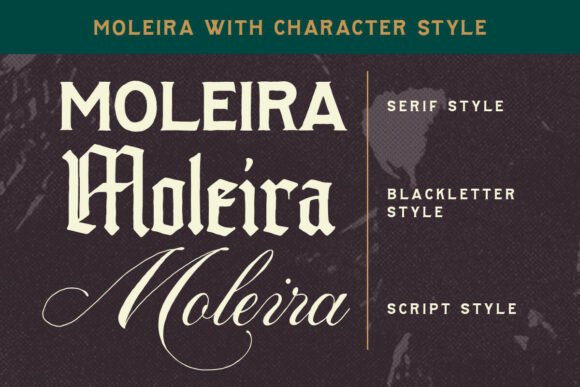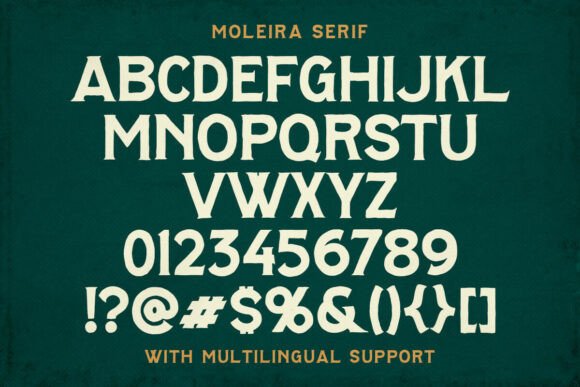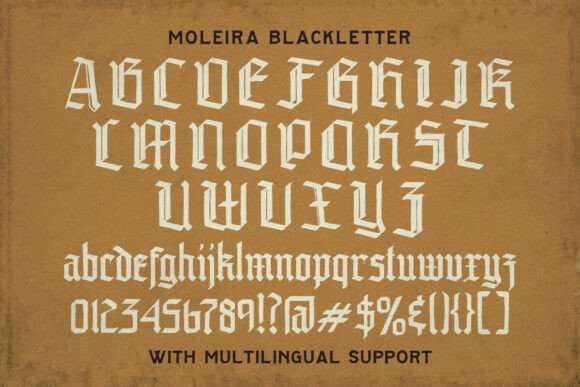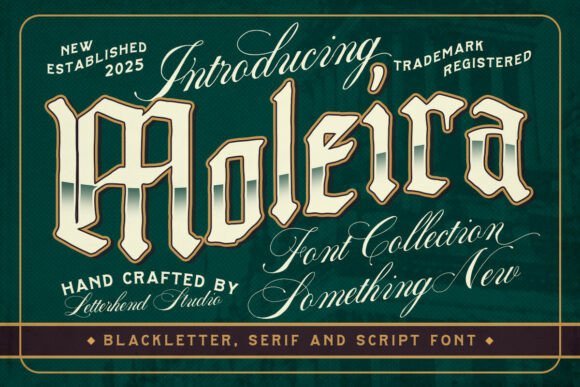
Introduction to Moleira Font
Moleira is a masterfully crafted font collection blending the bold authority of blackletter with the elegance of serif and the fluid grace of script .
Its blackletter core features sharp, angular strokes and ornamental serifs, evoking medieval gravitas, while the subtle shading in each glyph adds a dimensional, engraved quality The supporting script flows with refined flourishes, offering a romantic counterbalance to the commanding main forms, and the serif elements bring clarity and versatility.
Key Features of Moleira Font